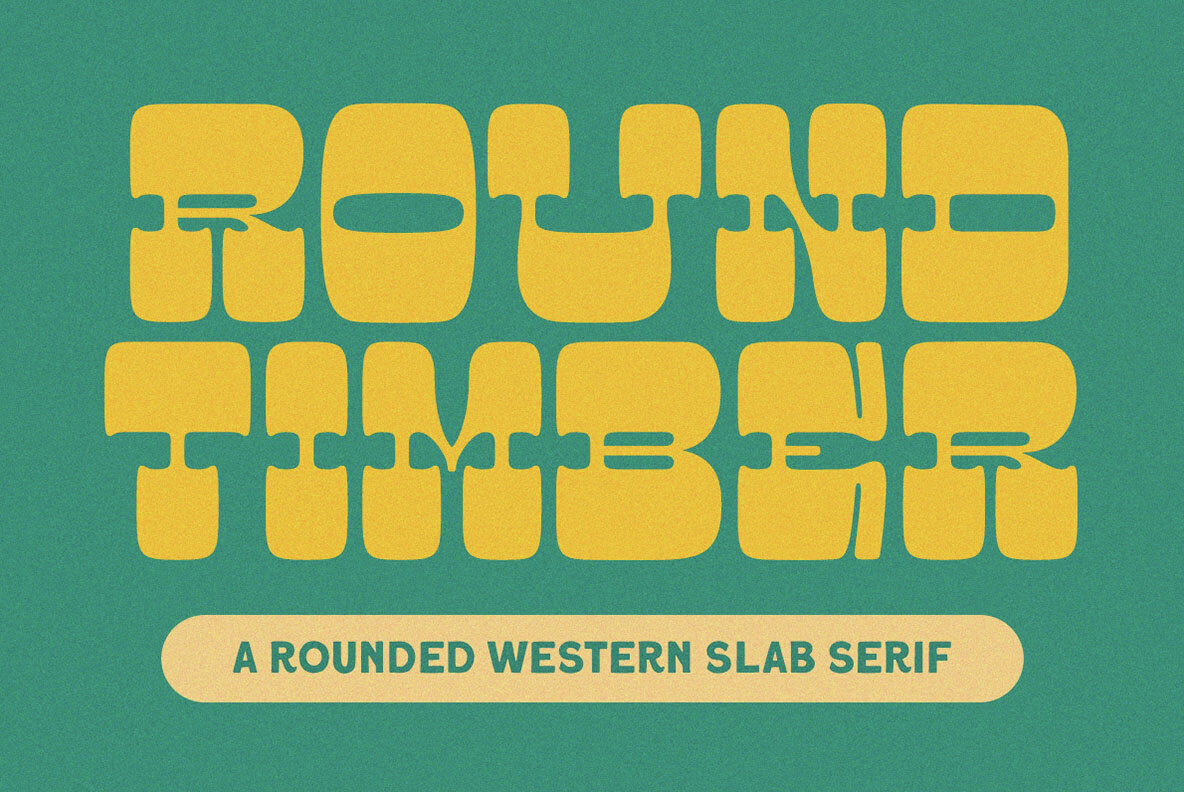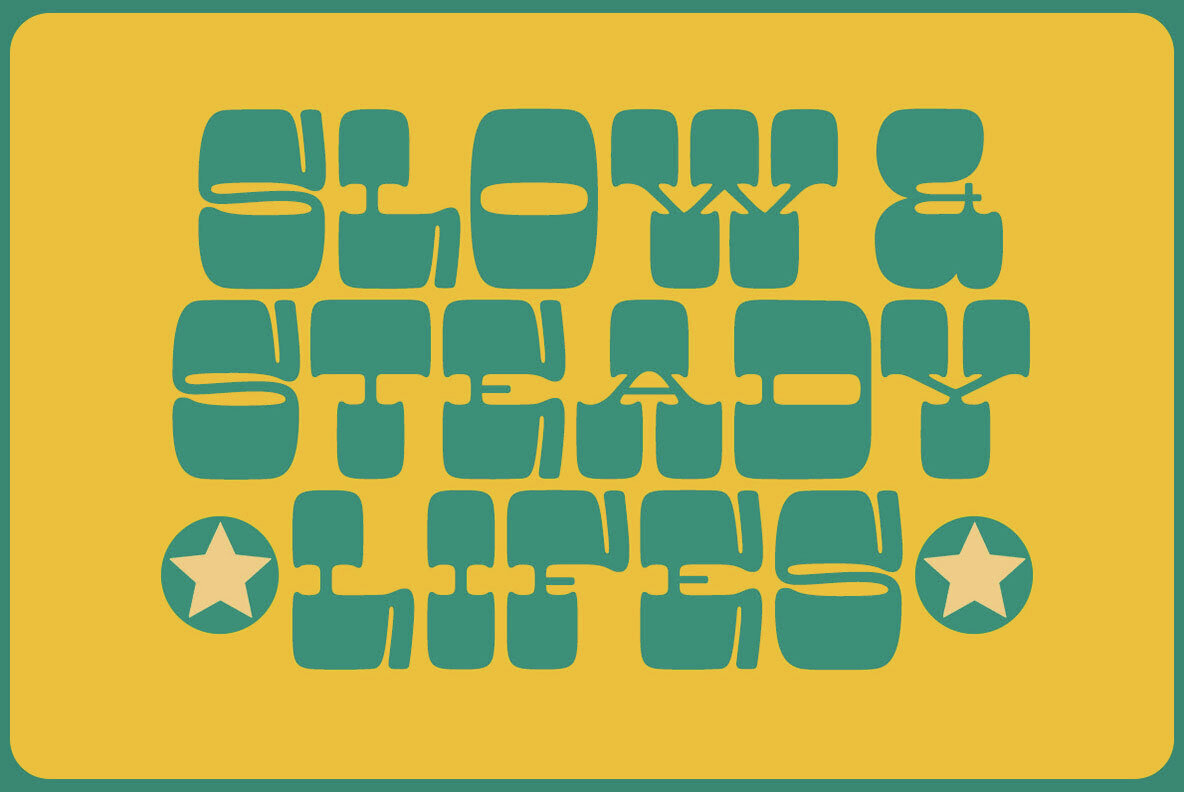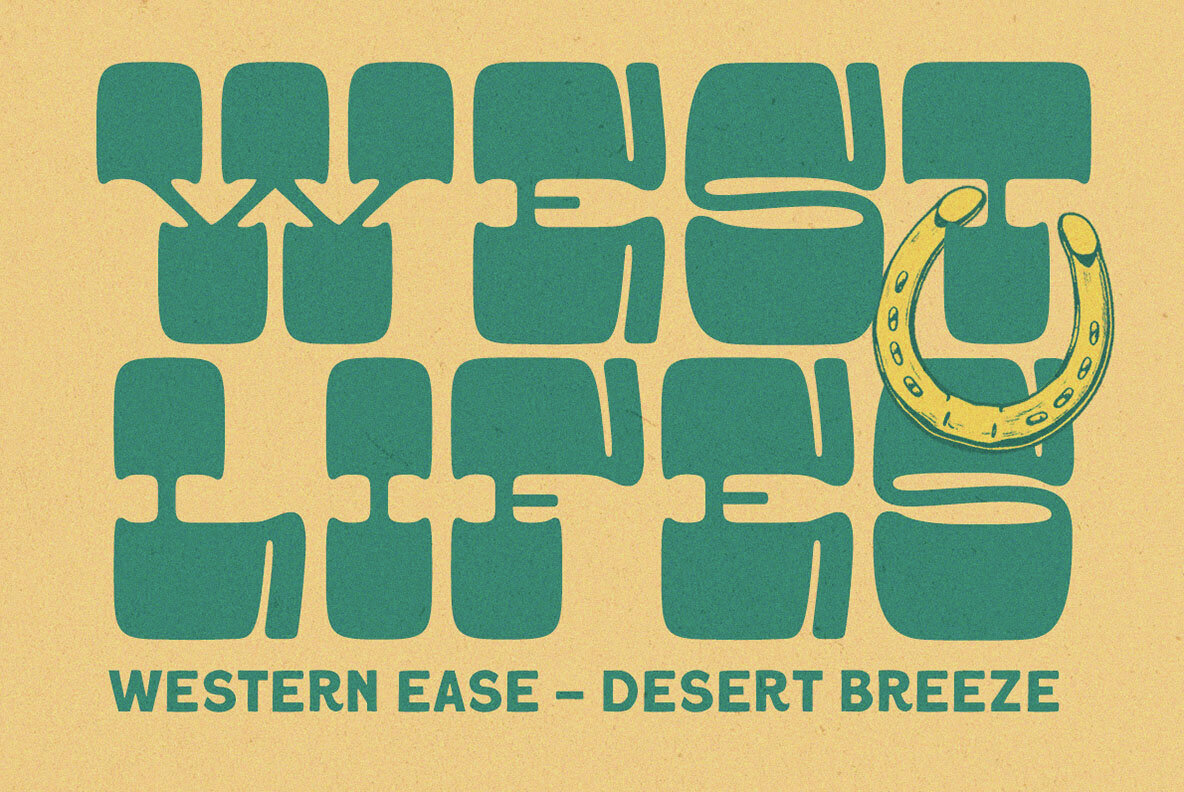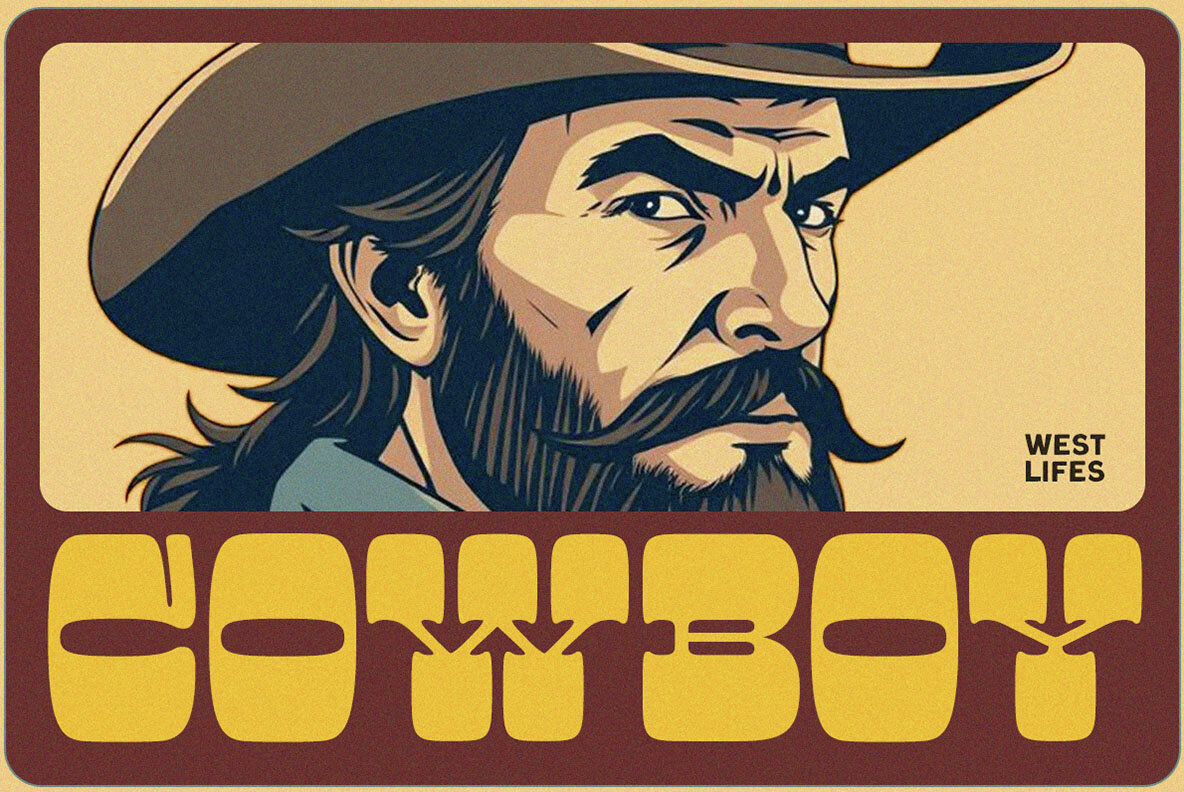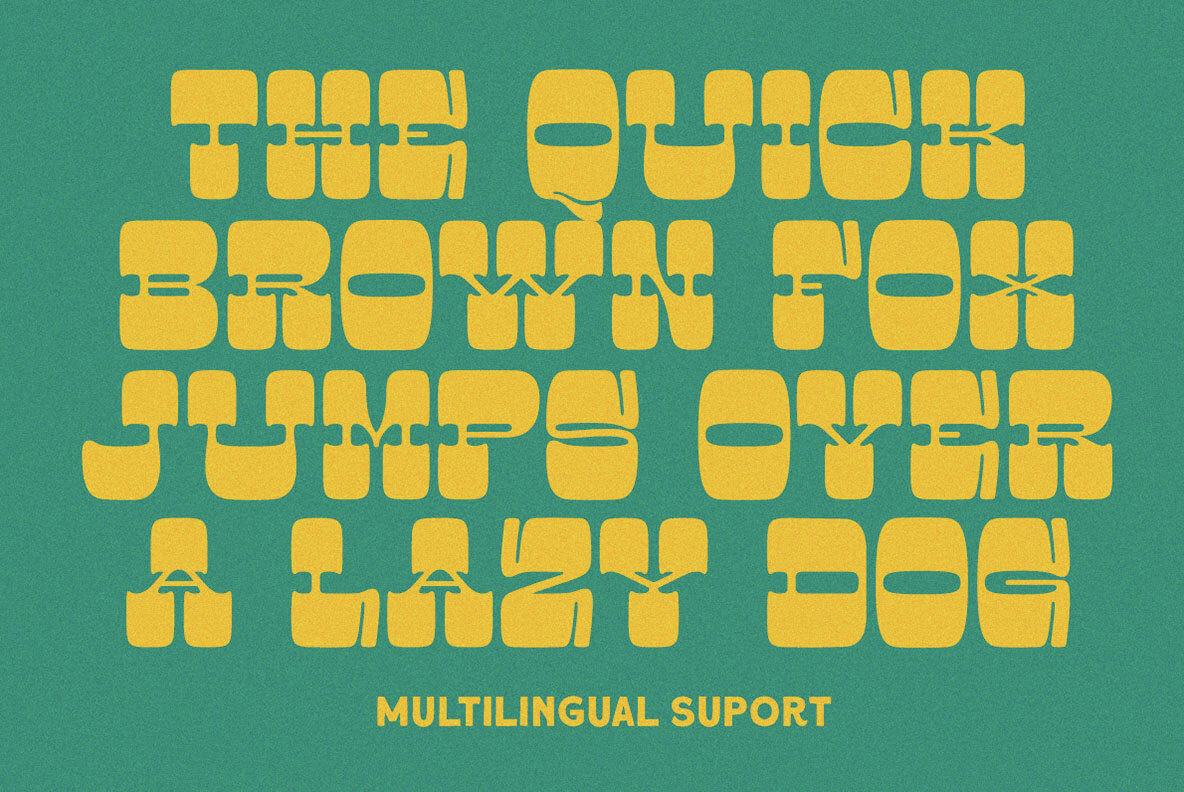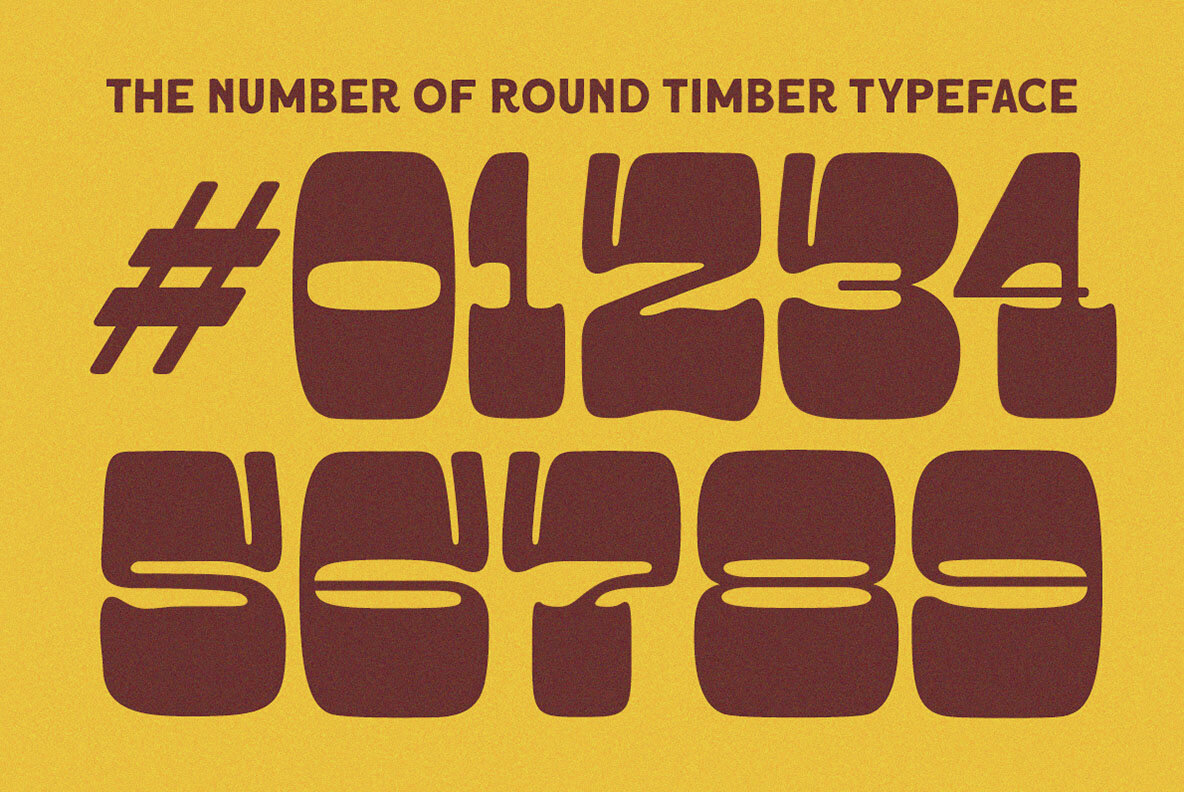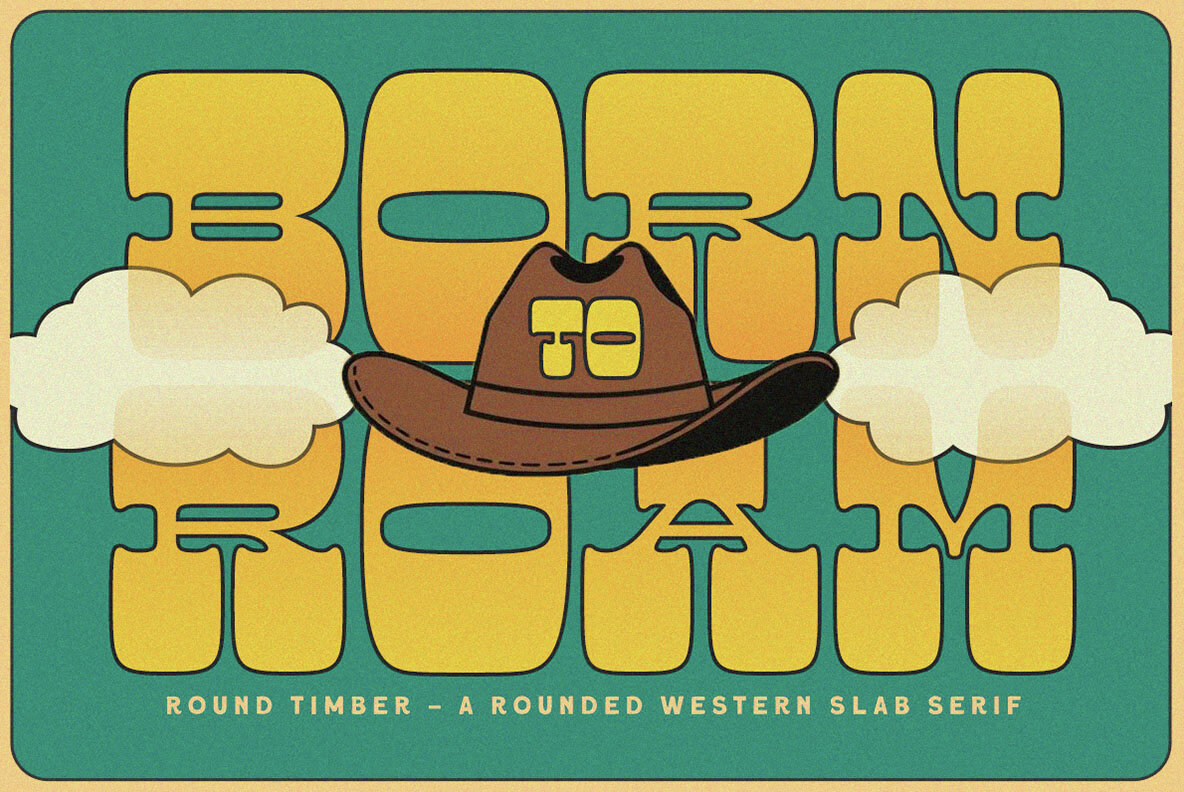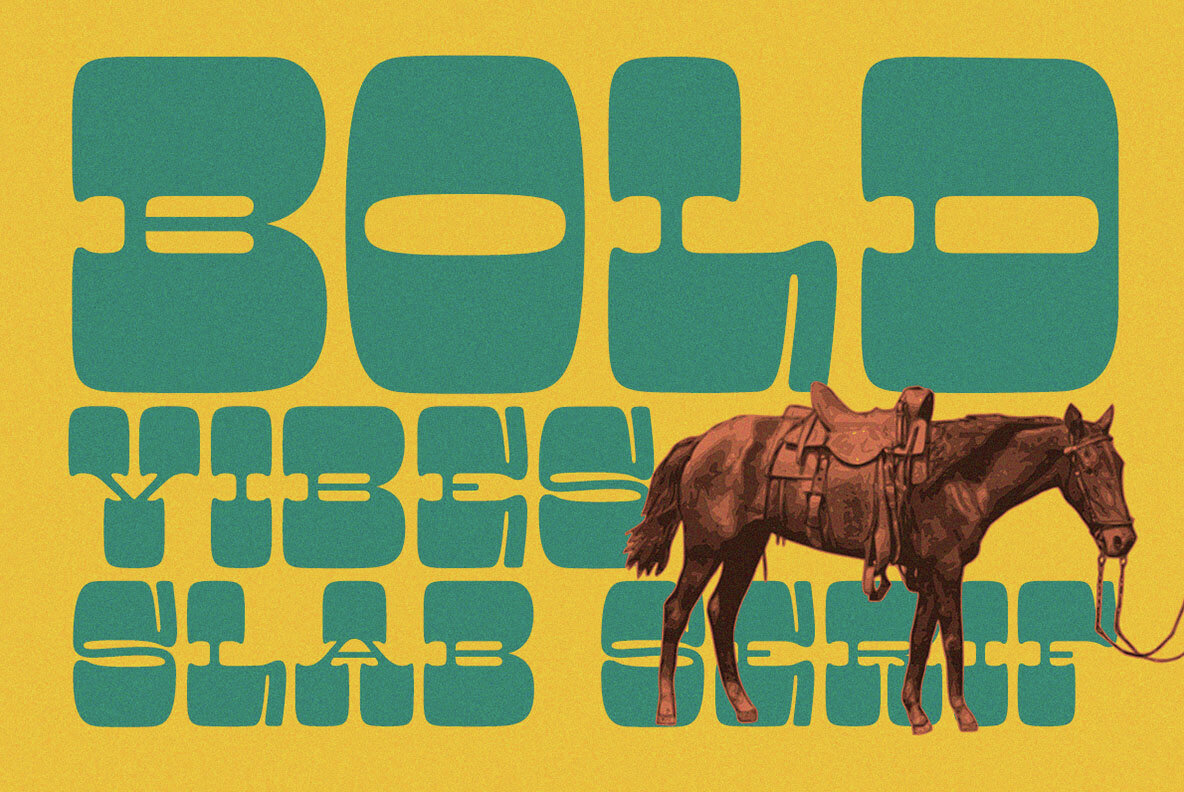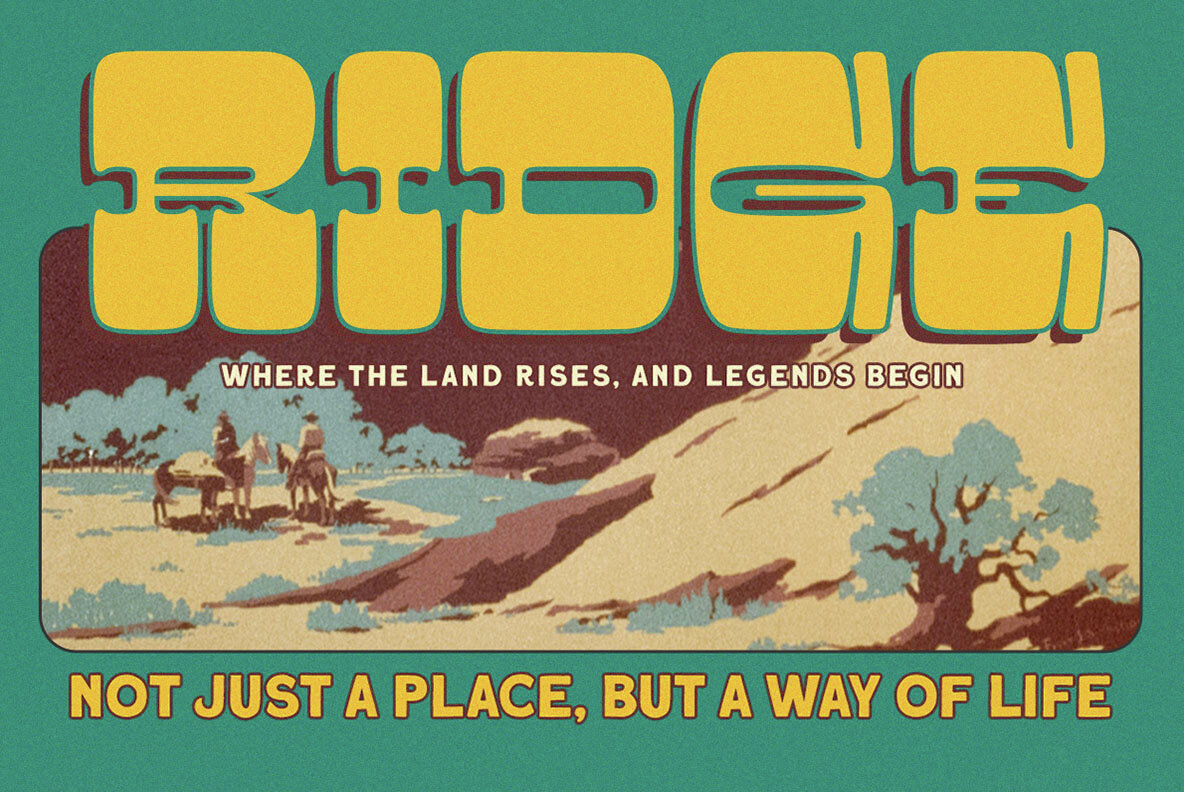
Round Timber Font
Round Timber Regular
Round Timber is a bold and playful display font that blends vintage western charm with a modern rounded twist. Featuring chunky slab serifs and smooth, curvy edges, this typeface brings a quirky, retro energy to your designs. It’s perfect for branding, packaging, posters, and anything that needs a strong yet friendly presence. Whether you’re working on a throwback design or a standout logo, Round Timber delivers personality with every letter. Features: We highly recommend using a program that supports OpenType features and Glyphs panels like many of Adobe apps and Corel Draw, so you can see and access all Glyph variations.